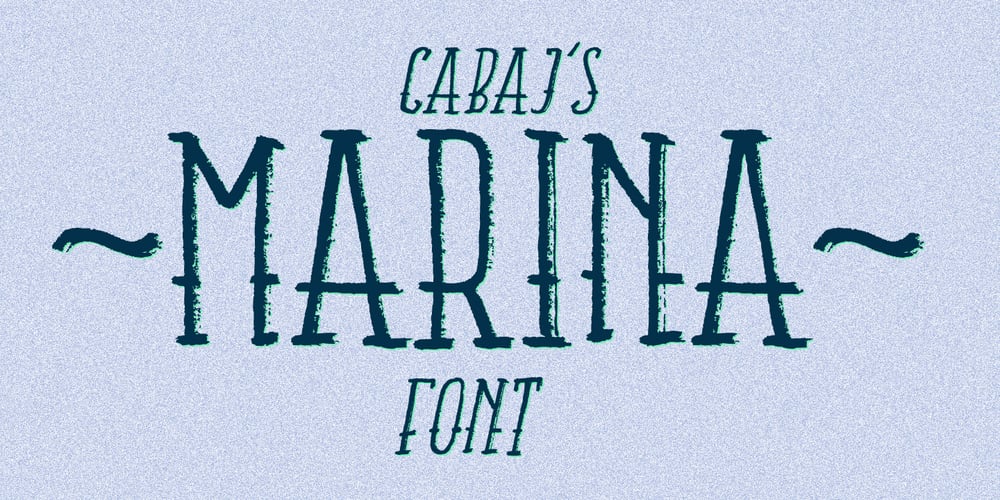
Marina Font Family was designed by Sebastian Cabaj and published by Sebastian Cabaj. Marina contains 2 styles and family package options. Marina is great typeface for titles, posters, books, covers, labels and apparel.